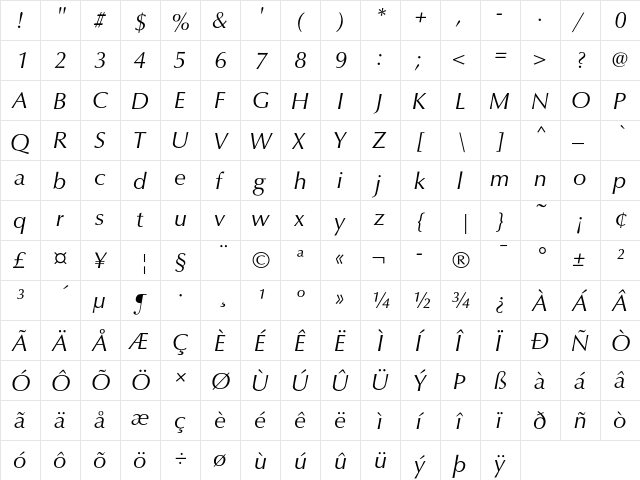
Classico URW Regular Italic
Design Context for Classico URW Typeface
Classico URW wears its vintage influences proudly, with letterforms that recall mid-century signage, classic packaging, and nostalgia-driven design. Its italic angle brings a sense of urgency and motion to the letterforms.
Font Pairing: Combine Classico URW with a simple slab or neutral sans — period-accurate companions reinforce the vintage feel without competing for attention.
Pro Tip: Use Classico URW for headlines and pull quotes rather than body copy — its personality is best appreciated in short, focused bursts.